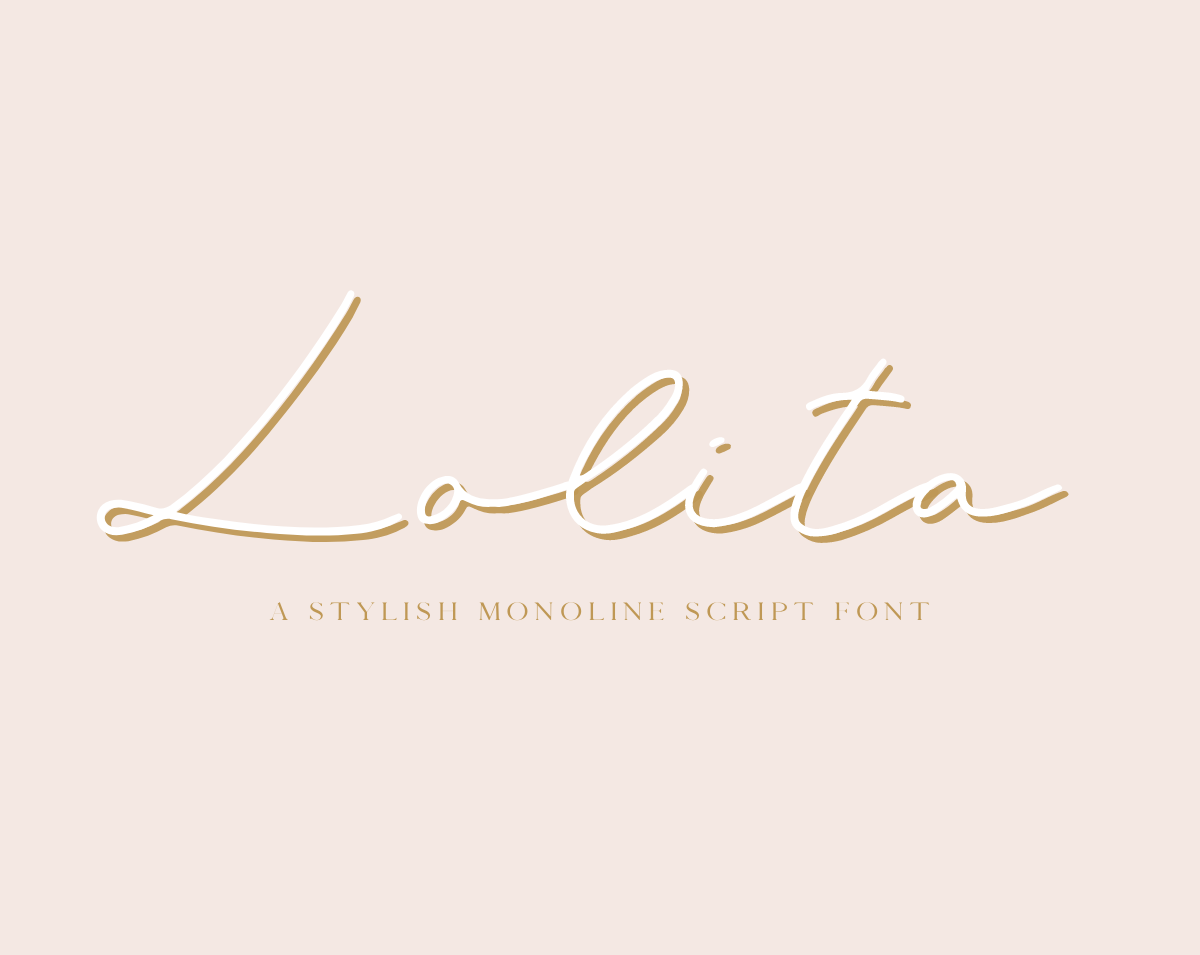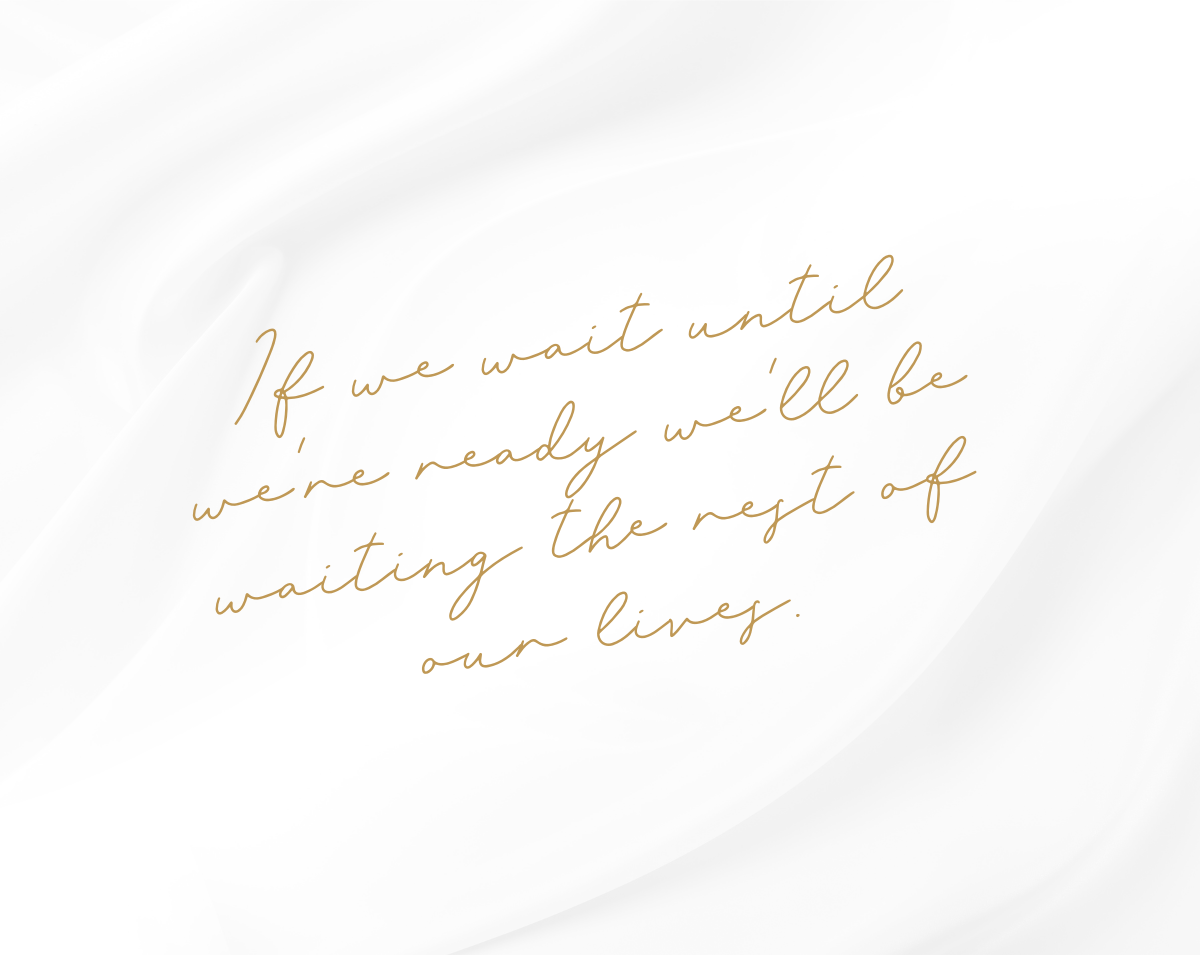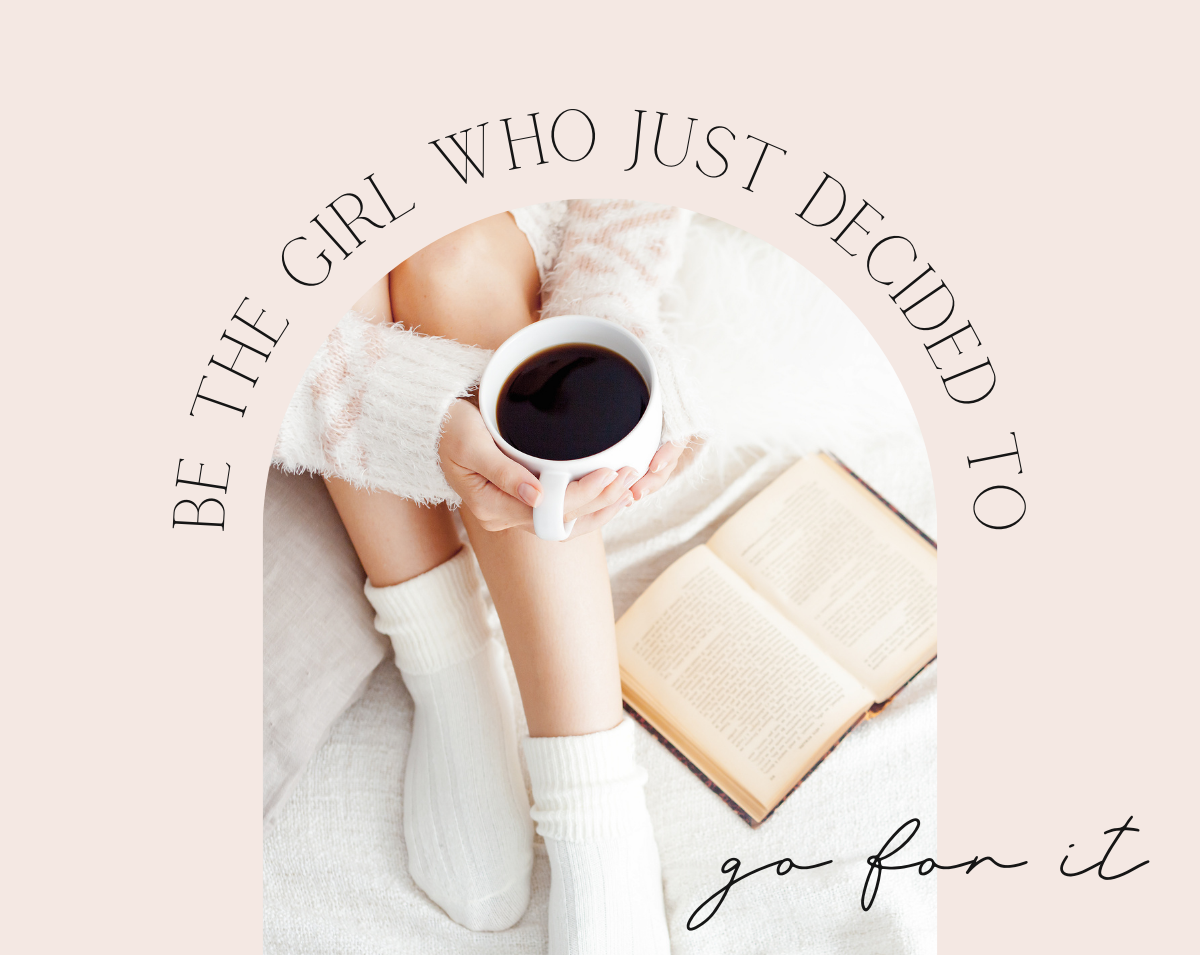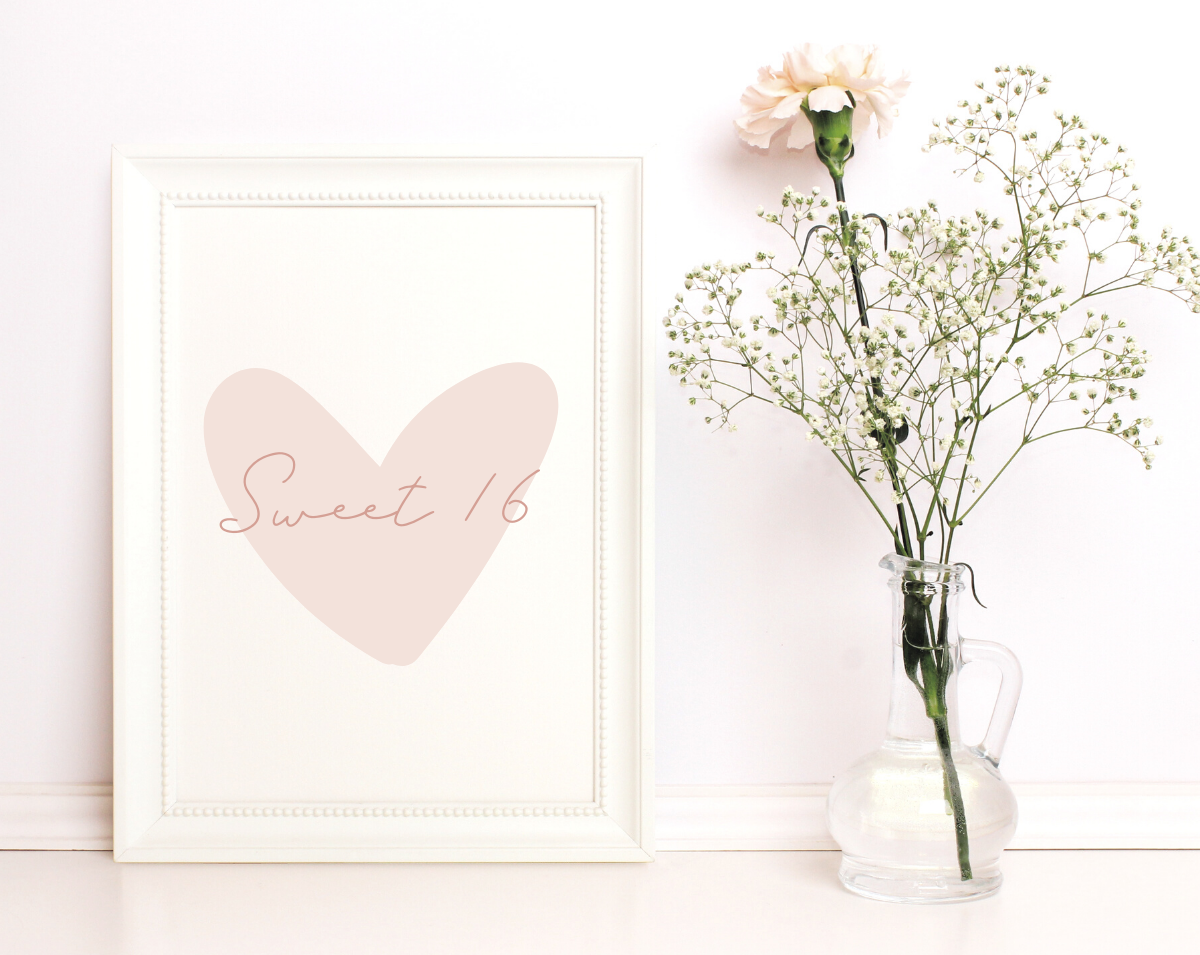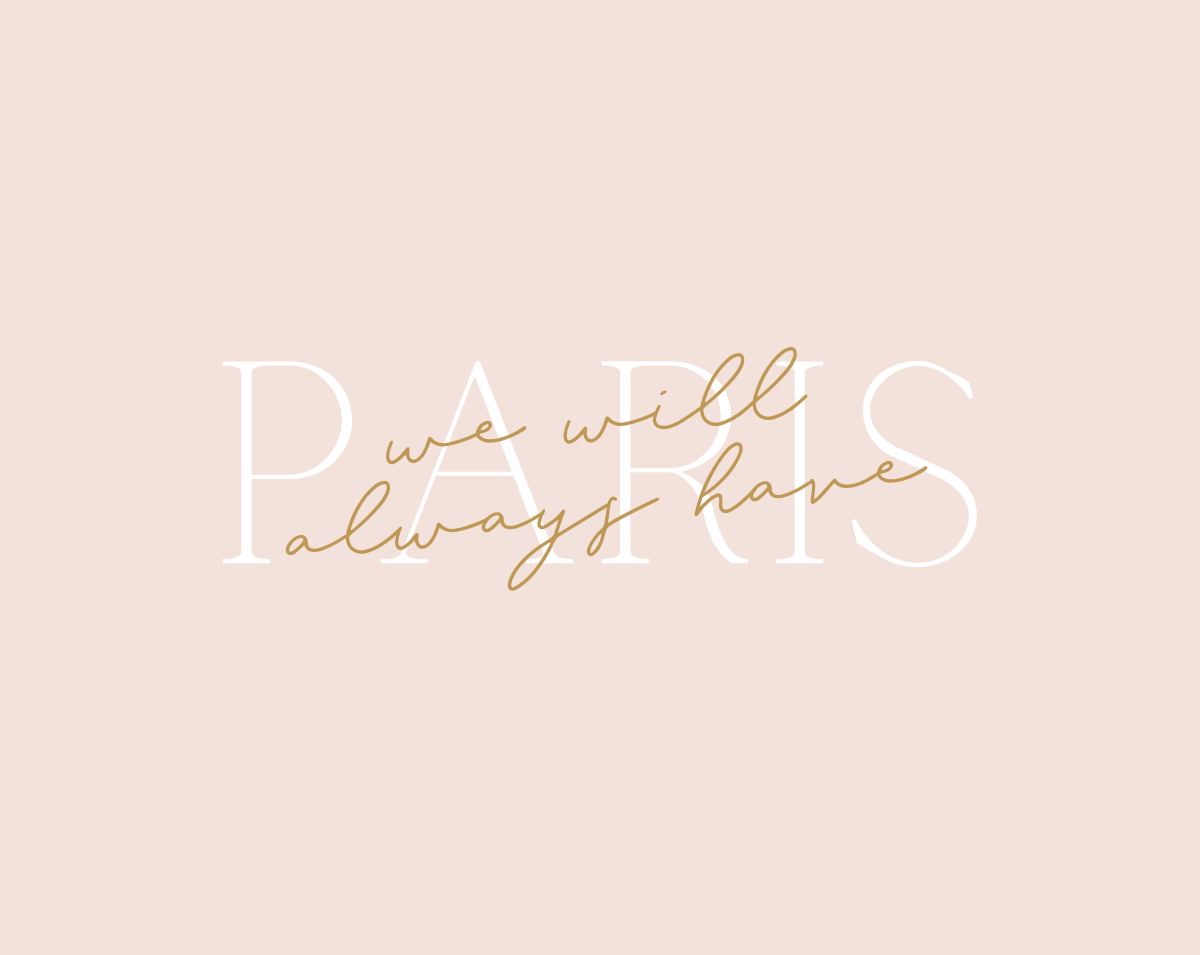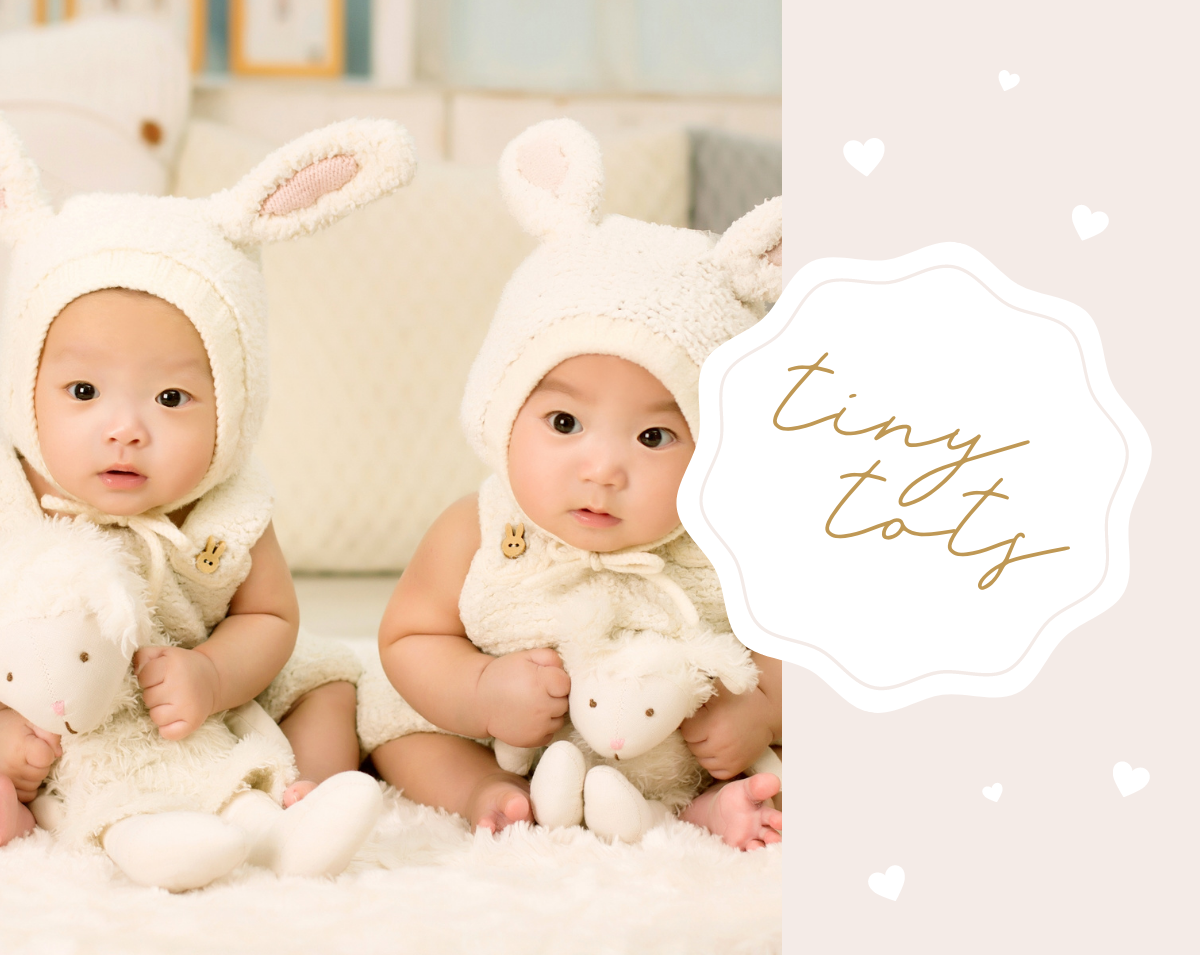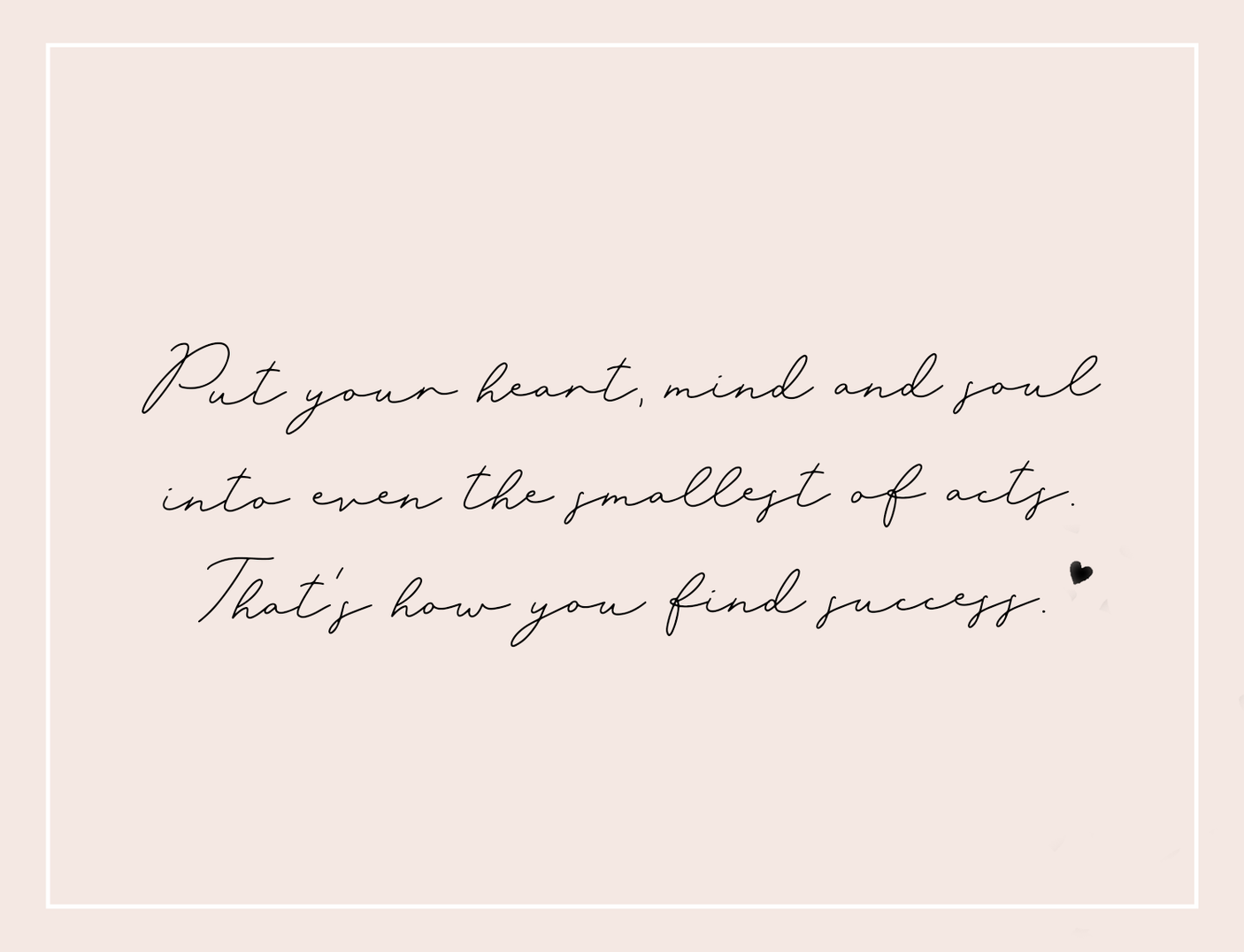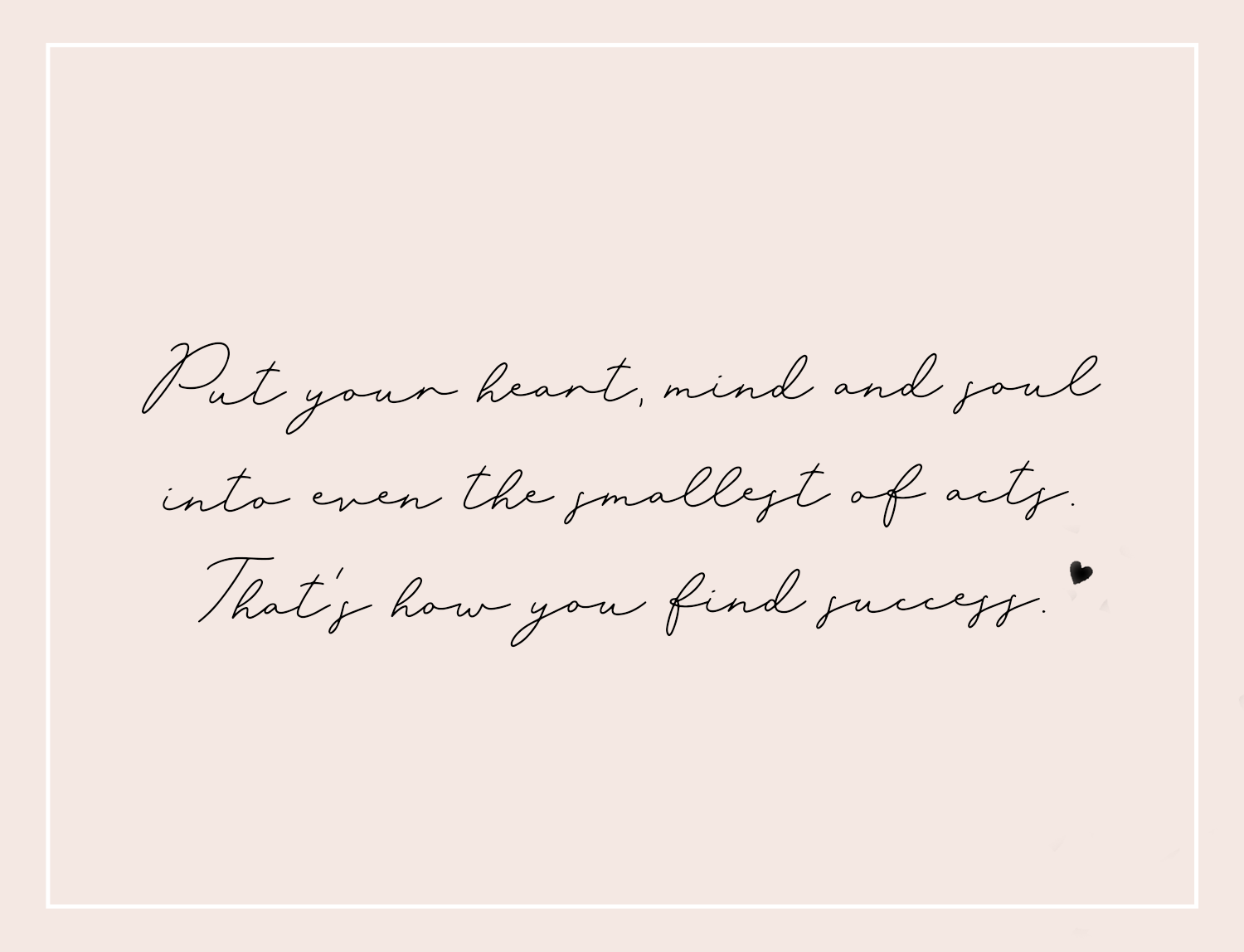
Lolita Font
Lolita script font by Blog Pixie is a stylish monoline handwritten font.
Perfect for smooth, silky handwriting that flows effortlessly and looks like a dream.
Use Lolita script for quotes, collages, print design, logos, magazine, eBooks, blogging and Instagram.